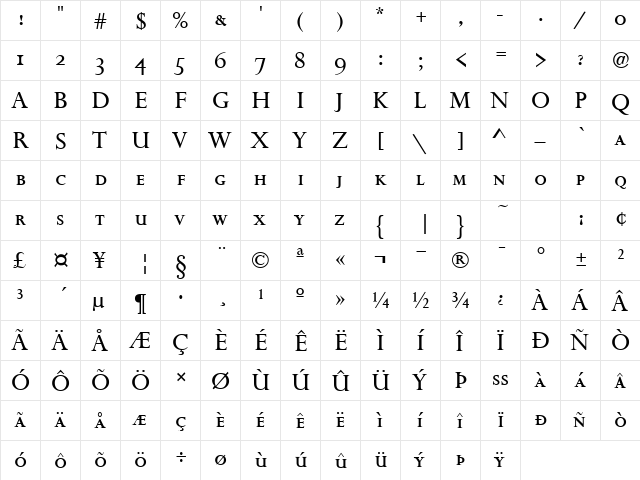
FelicitySmc Regular Font Preview
FelicitySmc Regular
FelicitySmc Regular Font Details
Design Context for FelicitySmc Typeface
FelicitySmc is a composed and adaptable typeface that performs quietly and consistently across a wide range of design contexts.